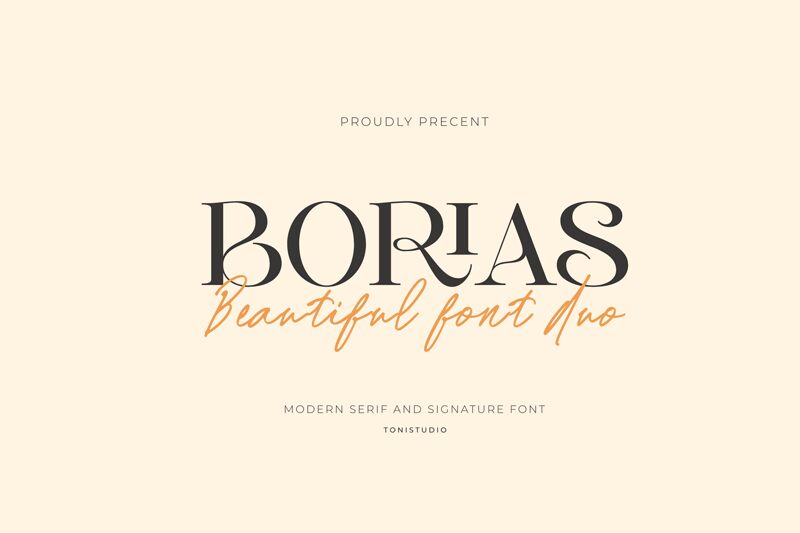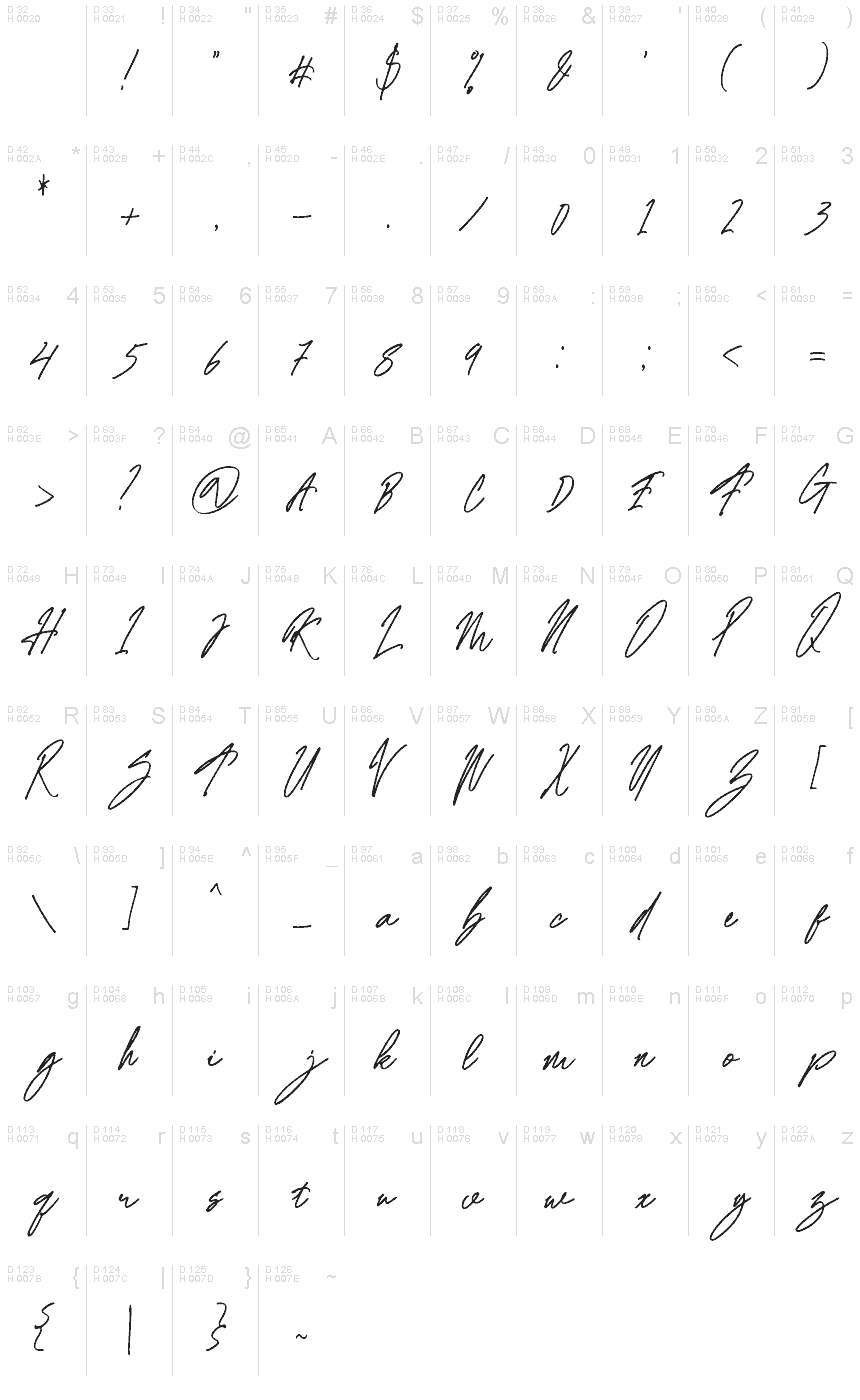
Borias Signature Signature
Borias Signature font by Toni Studio is an elegant, light handwritten typeface with a modern, signature-like style. Expressive and flowing characters combine effortlessly to deliver smooth, confident lines and curves resulting in a harmonious design. This artistic font is your chance to add a fresh and youthful feeling to t-shirt designs and greeting card covers among others.
Built like a modern day versatile typeface, Borias Signature font has plenty of projects it would be perfect for: point-of-display promo material design; poster headlines design; advertising visuals (newspapers & magazines); branding; packaging; TV commercials; wedding invitations or decoration cards - all free of charge!